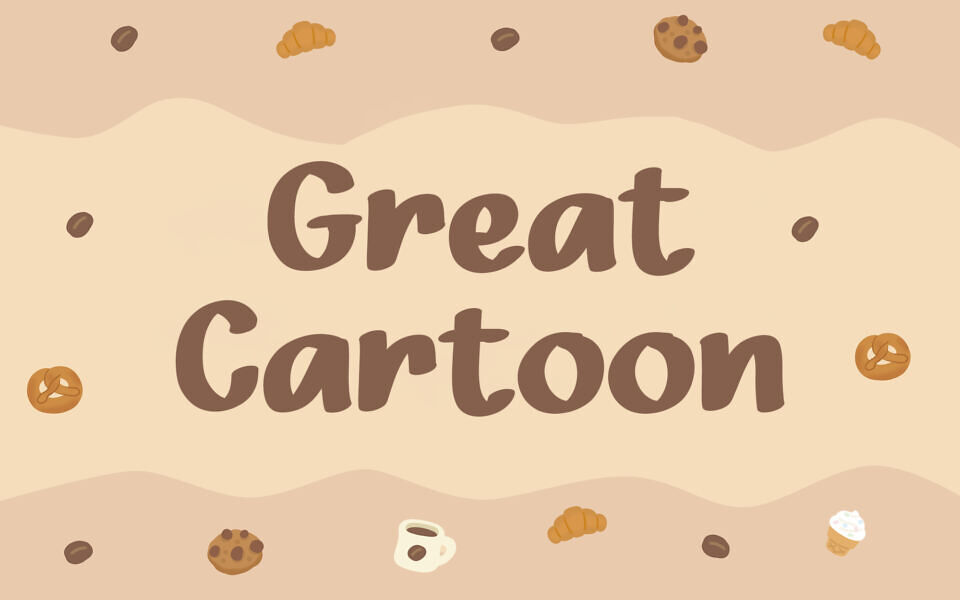
Great Cartoon is a playful handwritten font with a cute and friendly style, designed to bring a fun, lighthearted feel to any project.
Its smooth, rounded letterforms and casual flow make it perfect for invitations, greeting cards, posters, and creative designs that need a cheerful touch. With its charming personality and easy readability, it adds warmth and creativity to both digital and print layouts.